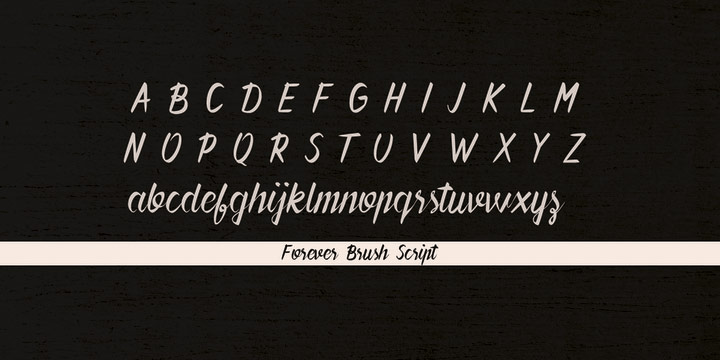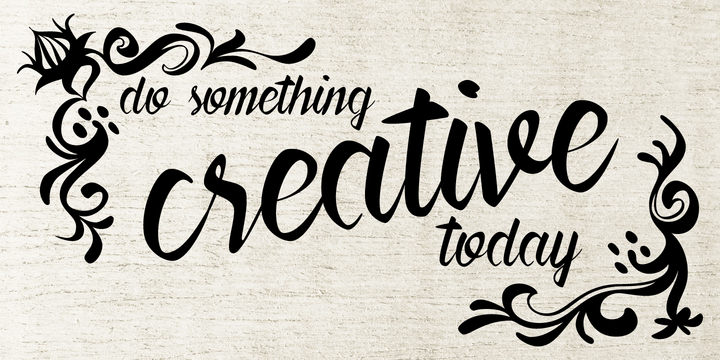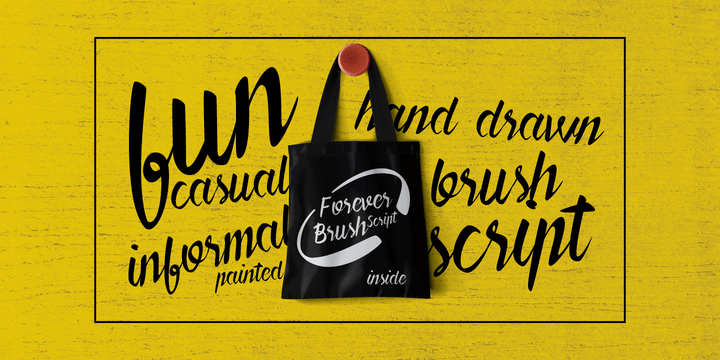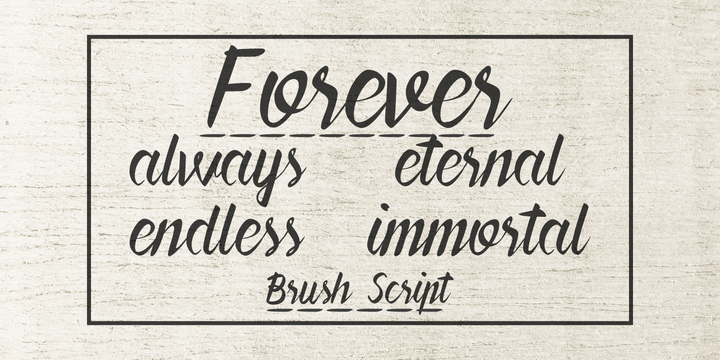
Forever Brush Script
Font Family by Pedro Teixeira Type Foundry
Forever Brush Script is a brush script font family with a casual, hand-painted feel and lively thick-and-thin strokes. Its lettering has an expressive, personal rhythm that gives layouts a warm, handcrafted look without feeling overly formal.
With 1 included style, this design is a strong fit for display work that benefits from a natural script voice—think branding, packaging, posters, social graphics, invitations, or apparel where a more human touch helps the message stand out.
Created by Pedro Teixeira Type Foundry, it offers a focused, single-style approach for designers who want brush lettering character in a clean, ready-to-use script.